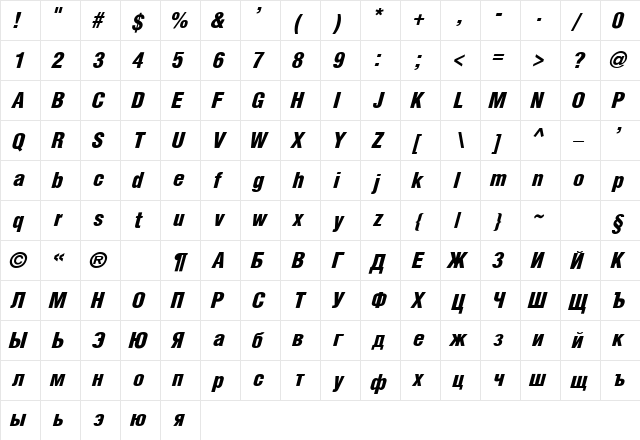
Helvet BCI Italic
Design Context for Helvet BCI Typeface
Helvet BCI offers clean, dependable letterforms without strong stylistic allegiance, making it a practical choice for designers who need flexibility. The dynamic lean of this cut emphasises speed and emphasis in any layout.
Pro Tip: Try Helvet BCI for annotation and caption copy alongside an upright companion — the contrast in angle creates a dynamic but ordered typographic system.